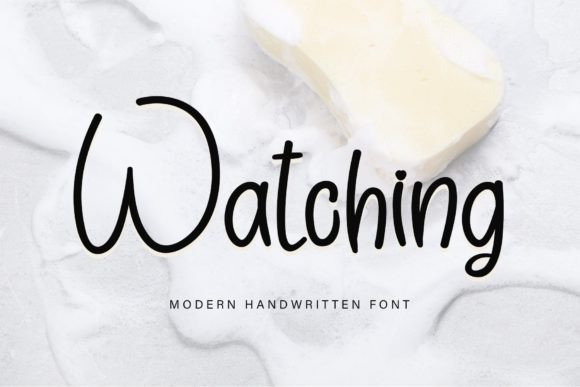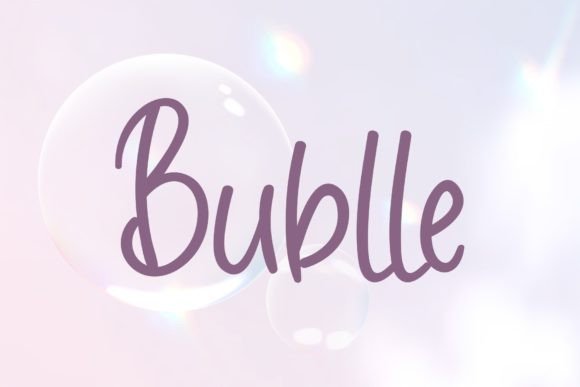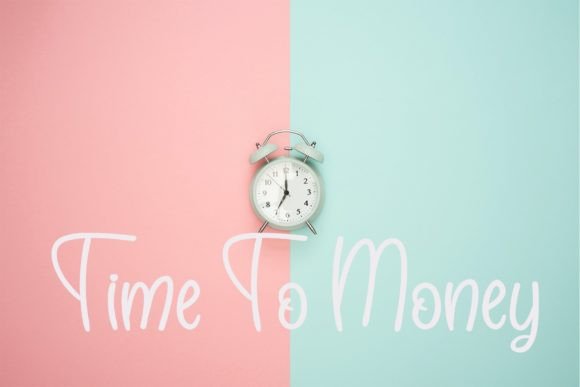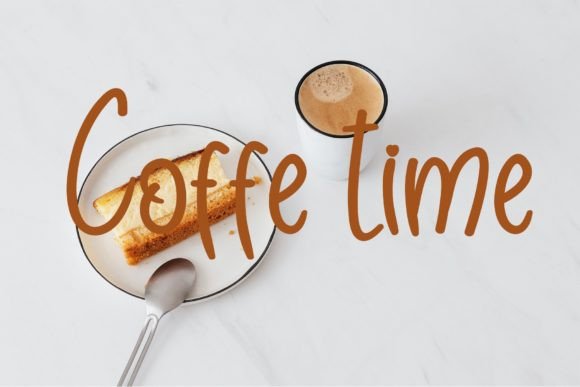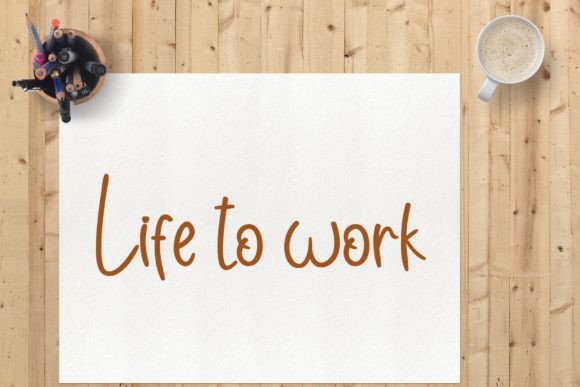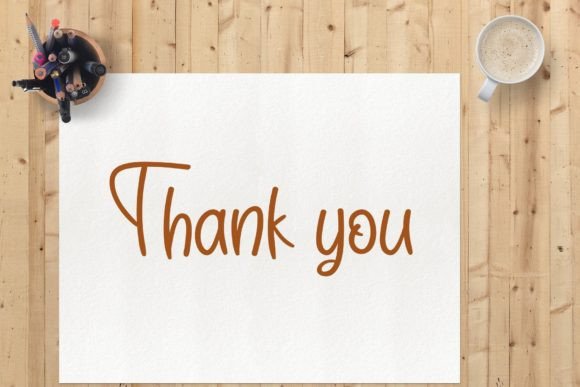
Watching Font
About Watching Font
“Watching” is a magical handwritten font that has been meticulously crafted to infuse a touch of elegance into your designs. Whether you are searching for fonts for Instagram or calligraphy scripts for DIY projects, “Watching” possesses the enchanting ability to turn any creative idea into a true piece of art.
The magic of “Watching” unfolds in its carefully created handwritten style. The font radiates an enchanting and elegant vibe, making it a versatile choice for various design applications. Whether applied to social media, DIY projects, or other creative ventures, the font introduces a touch of sophistication.
The magical quality of “Watching” is particularly evident in its capacity to elevate your designs. The handwritten script imparts a sense of authenticity and artistry, transforming ordinary text into a visually captivating element. This makes the font suitable for a broad spectrum of projects where elegance plays a pivotal role.
For those in search of fonts for Instagram, “Watching” stands out as a captivating choice. The magical and elegant nature of the font adds a unique flair to your posts, rendering them more eye-catching and engaging. The script’s versatility ensures it seamlessly adapts to various social media contexts.
In DIY projects, “Watching” becomes an invaluable tool for adding a touch of magic. Whether utilized in invitations, crafts, or other handmade creations, the font enhances the overall aesthetic, turning your projects into true works of art.
In essence, “Watching” transcends being just a font; it is a design asset that introduces magic and elegance to your creative projects. Embrace its enchanting handwritten style and allow it to transform your Instagram posts, DIY projects, and other designs into genuine pieces of art. Let “Watching” be the magical touch that imparts a sense of sophistication and authenticity to your creative endeavors.